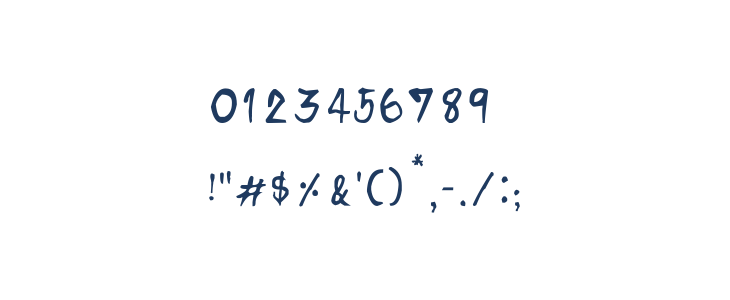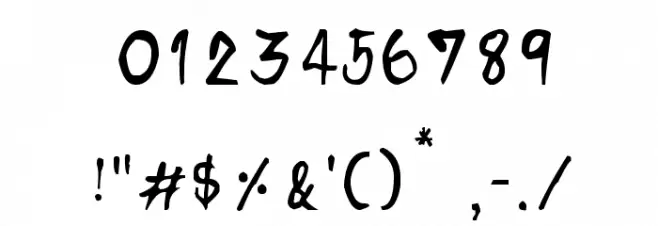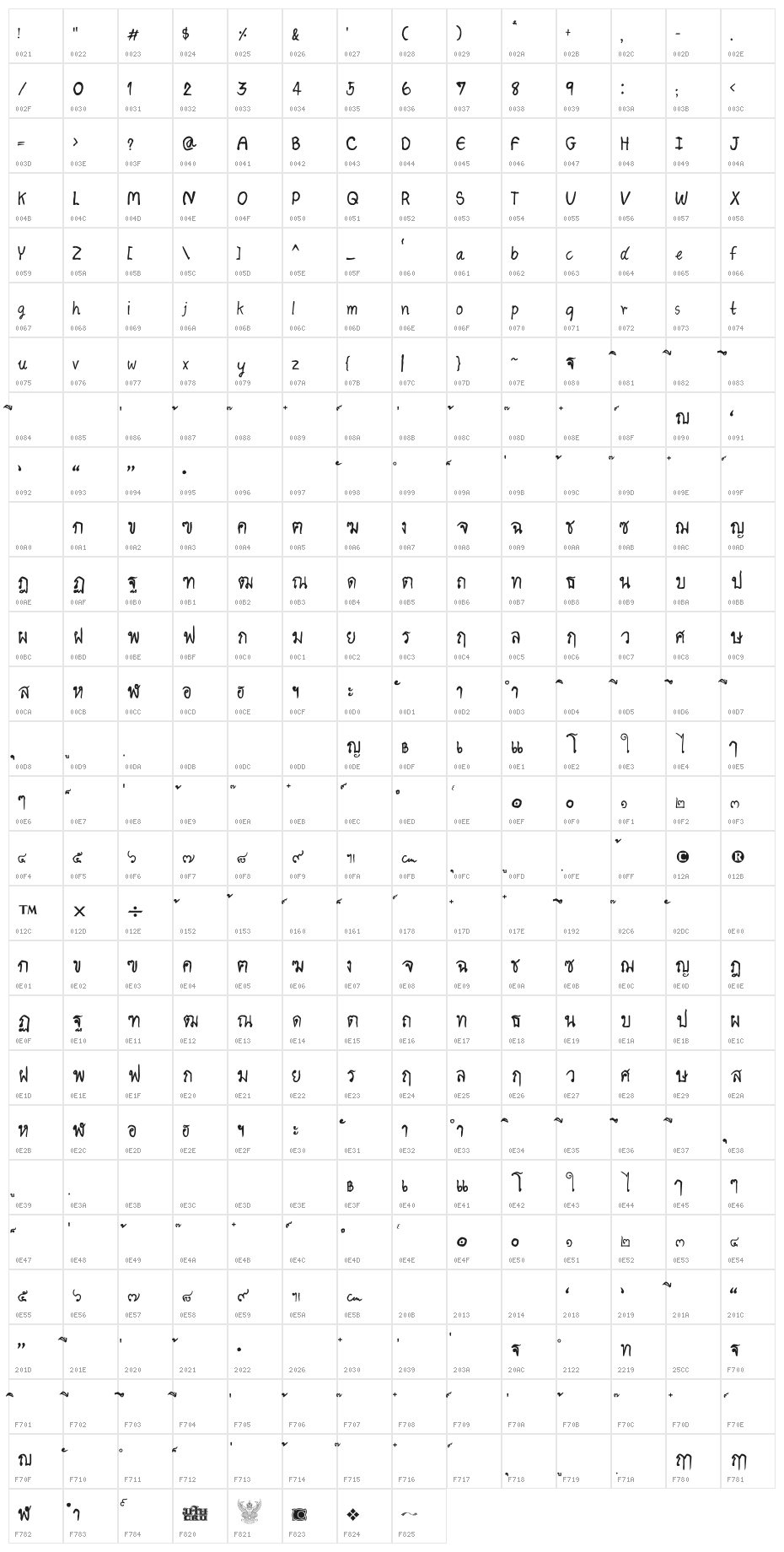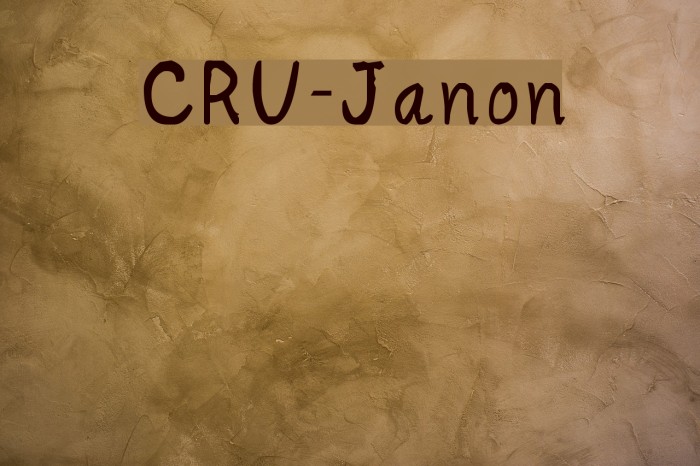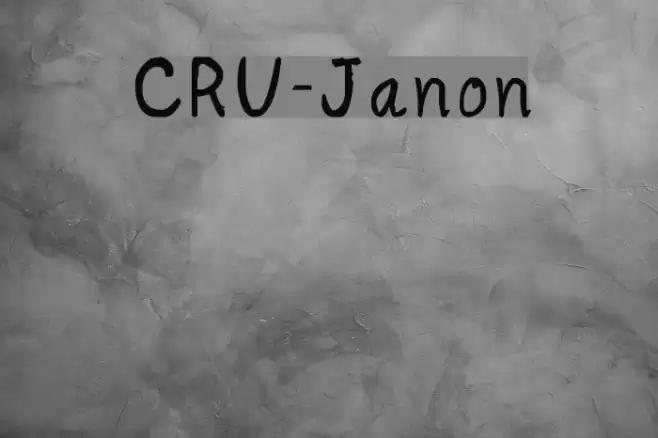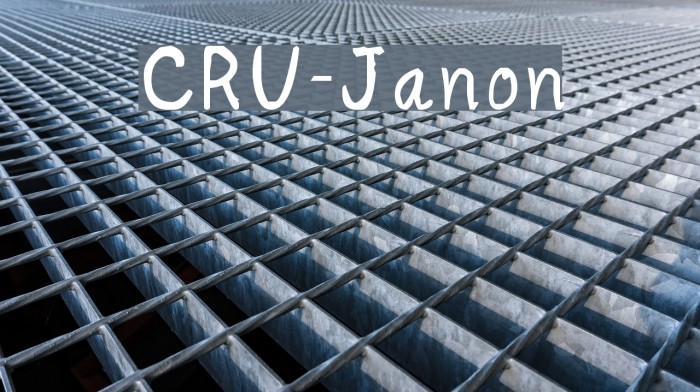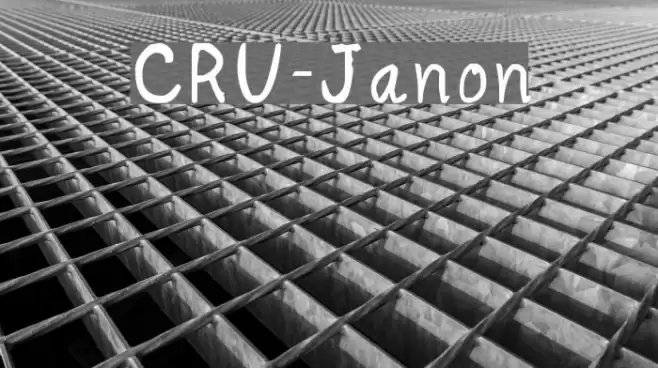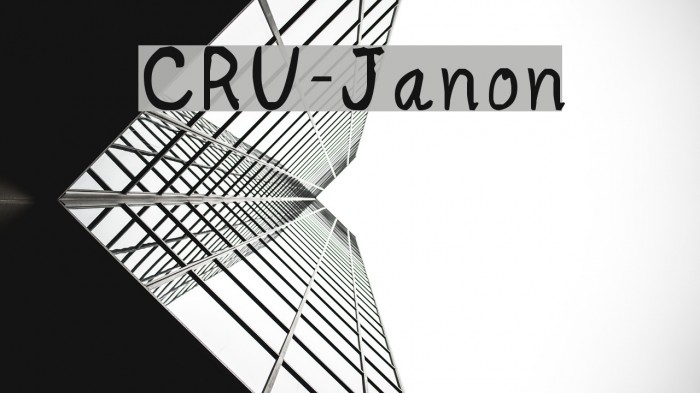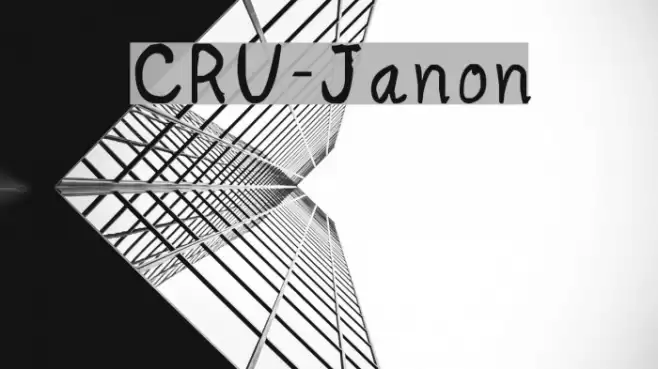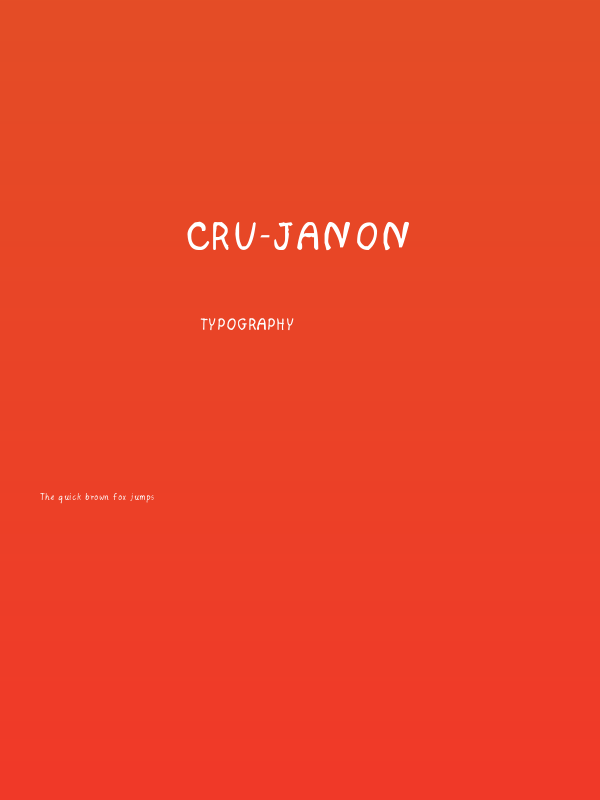
CRU-Janon Font
CRU-Janon Description
This font exhibits a playful and casual handwritten style, characterized by its irregular strokes and slightly uneven baseline. The letters have a whimsical, organic feel, with rounded edges and a natural flow that mimics the look of handwriting. The uppercase letters are bold and prominent, while the lowercase letters maintain a consistent style with a slightly smaller size. Numbers and special characters follow the same playful aesthetic, making the font versatile for various creative applications. The overall appearance is friendly and approachable, suitable for projects that require a personal touch.